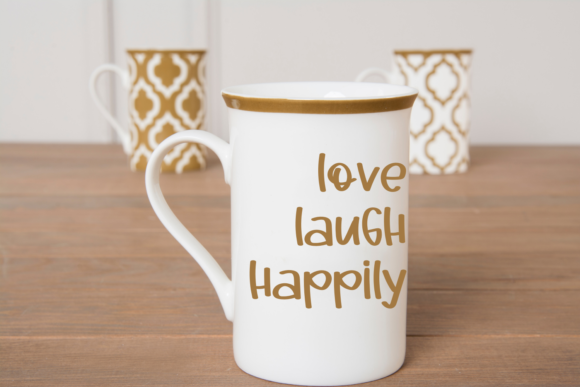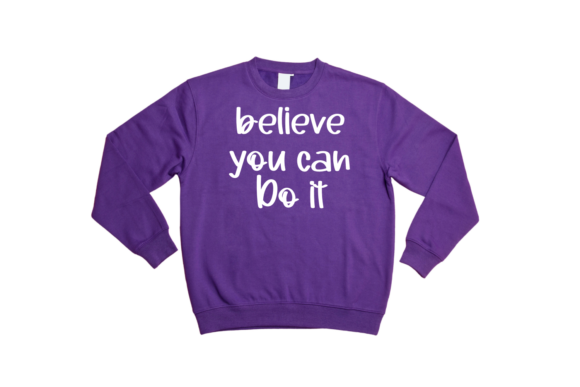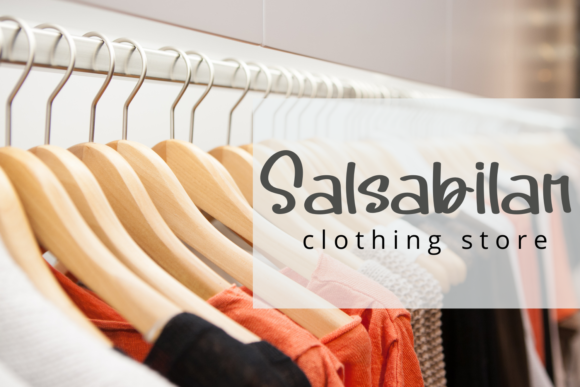
Introduction to Smart Home Font Font
Fonts play a crucial role in design, and the Smart Home Font font is a typeface that brings both character and versatility to any project. Whether you’re working on a branding project, a website, or a print design, the Smart Home Font font offers a unique style that can elevate your work.
Smart Home is a trendy and sweet handwritten font.
Quirky and neat, this font will elevate each of your casual designs .
Key Features of Smart Home Font Font
Why Choose Smart Home Font Font?
The Smart Home Font font is more than just a typeface – it’s a design tool that helps you communicate your message with style and clarity. Its unique character set and versatile design make it suitable for a wide range of applications, from elegant invitations to bold headlines.
With its carefully crafted letterforms and balanced proportions, the Smart Home Font font ensures readability and visual appeal across all mediums.
What makes Smart Home Font font special?
The Smart Home Font font stands out with its unique design, exceptional readability, and versatility across various design applications.